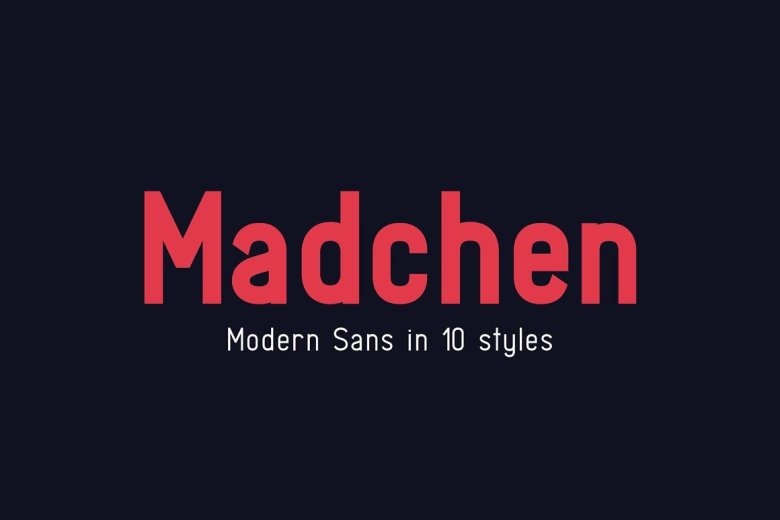
Madchen Sans is a modern sans serif font family in 10 styles with little condensed and geometric feel. Five weights and italic styles can help users create eye-catching designs and brands. Madchen is great for screen, editorial, publishing, logos, advertising, branding and corporate identities. It support a wide range of languages including Extended Latin.